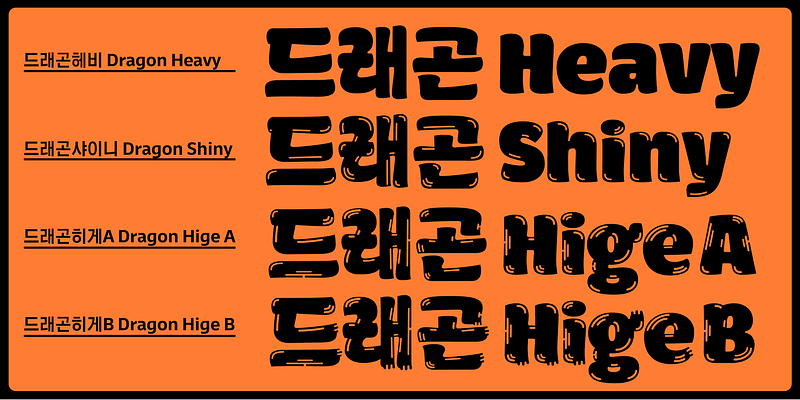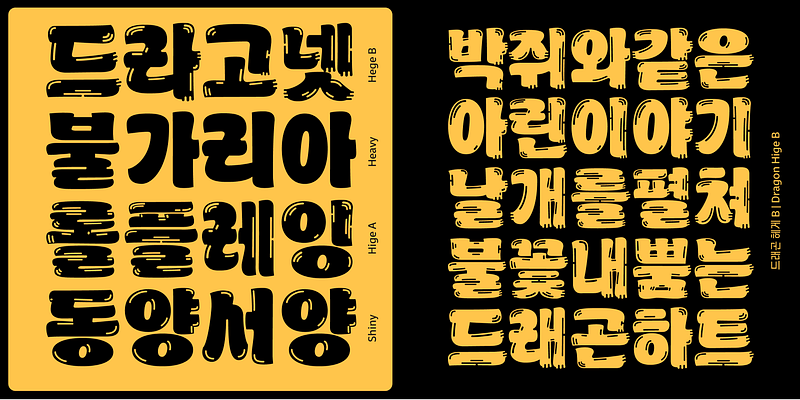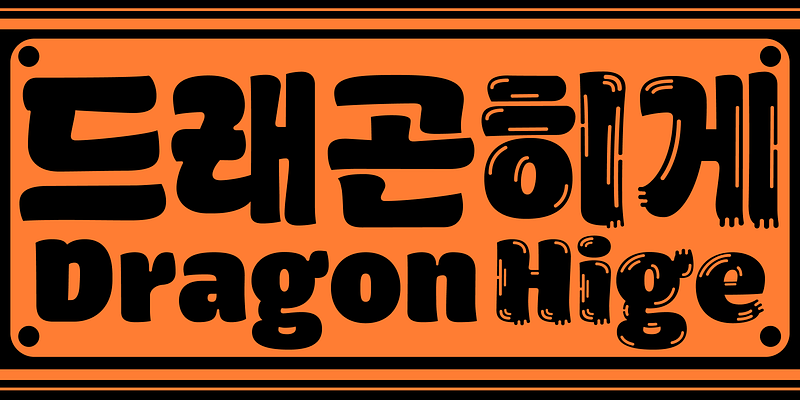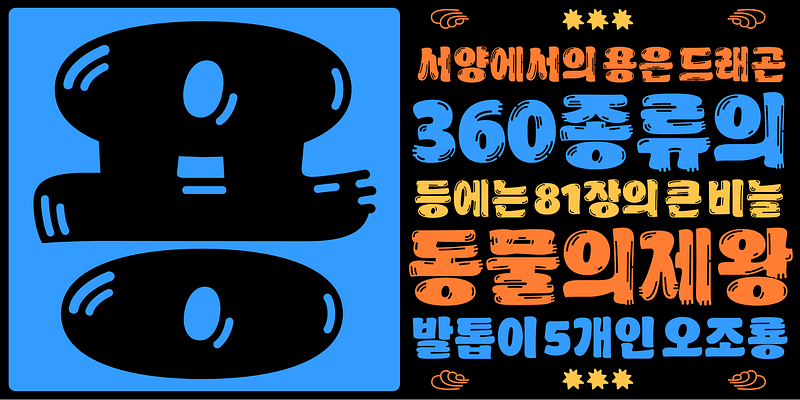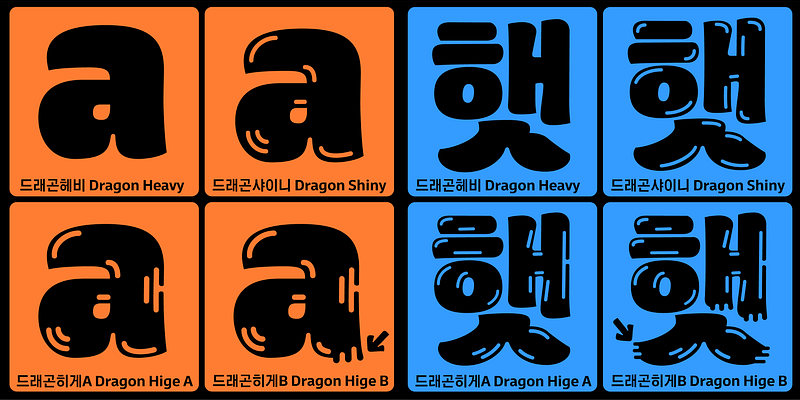
Introducing the playful and energetic Font Dragon! Its organic and distinctive letter shapes are sure to catch the eye and add a touch of whimsy to your design. This font is perfect for when you want to convey a sense of warmth and cheerfulness. Give your project a burst of personality with Font Dragon!
Minjoo Ham
Minjoo Ham is an independent type designer and a half of Hypertype foundry. She completed the TypeMedia master course at the Royal Academy of Art in The Hague, Netherlands, concentrating on Latin and Hangul double-script, since then she is producing multi-script font families for multi script font project.